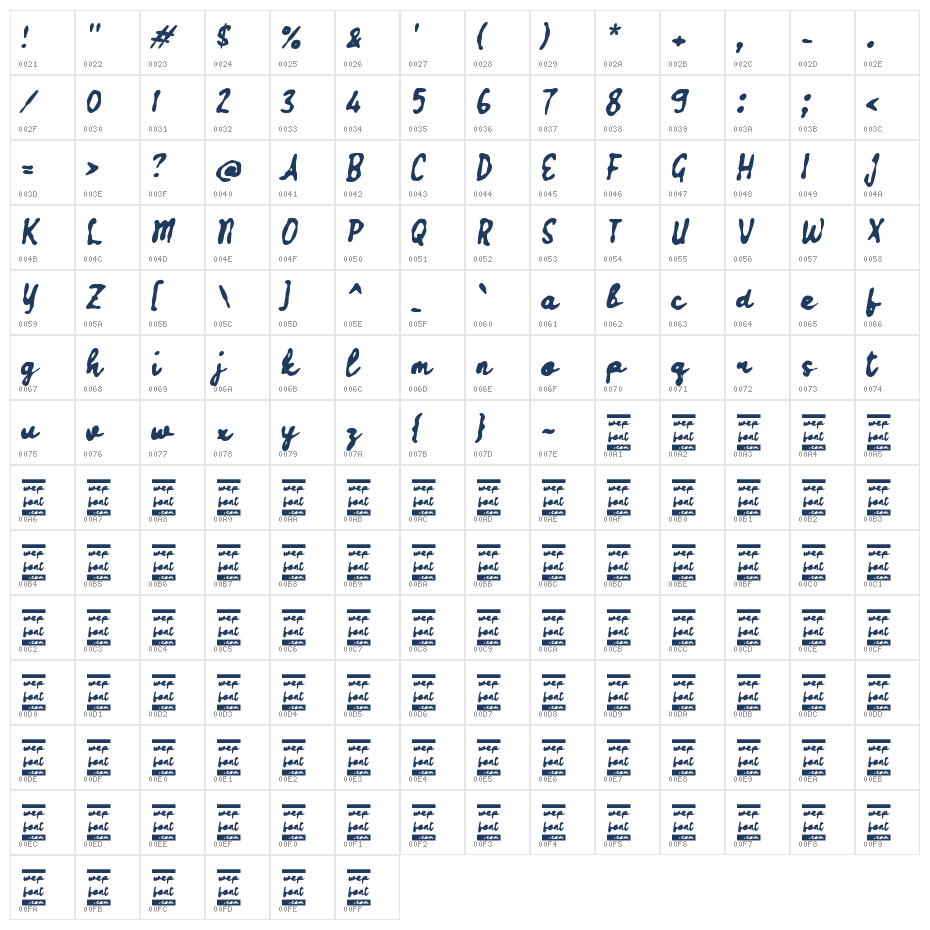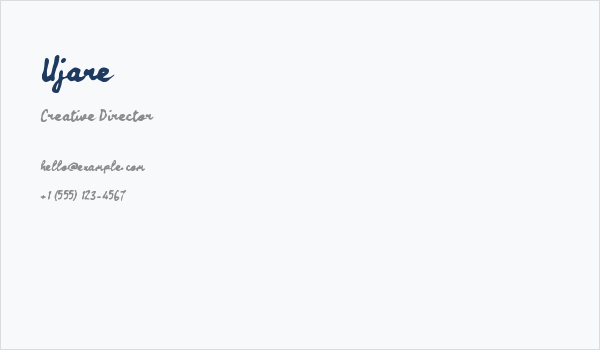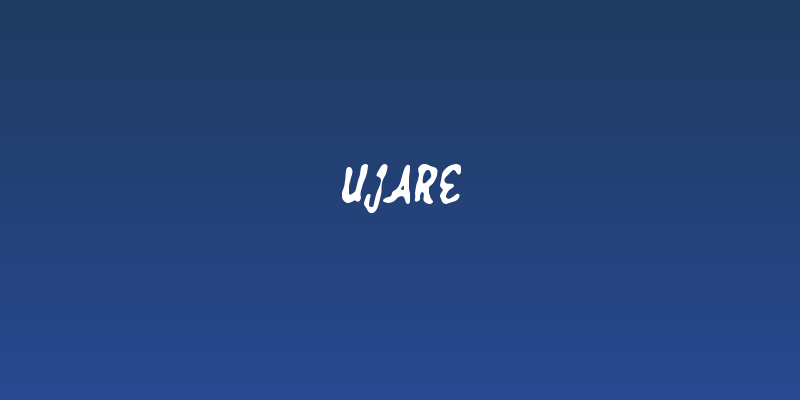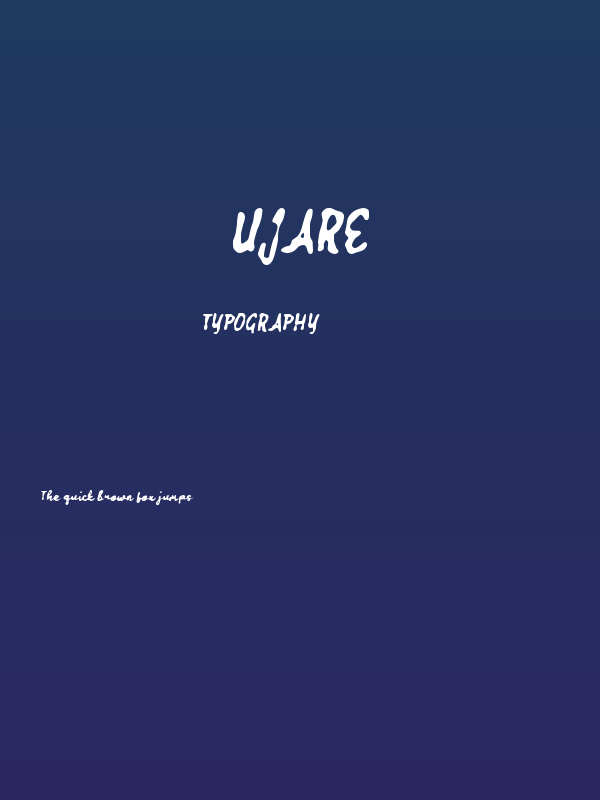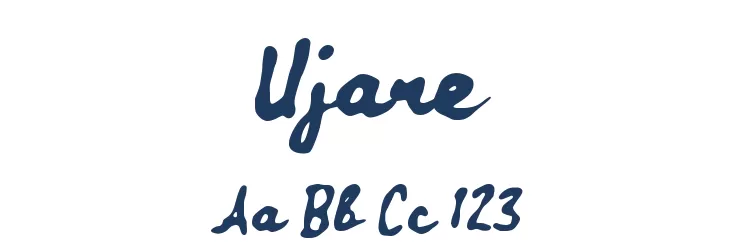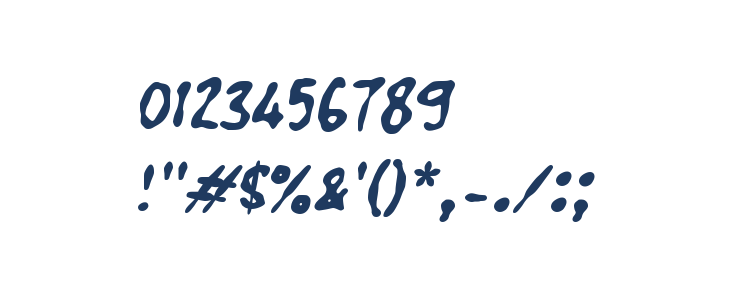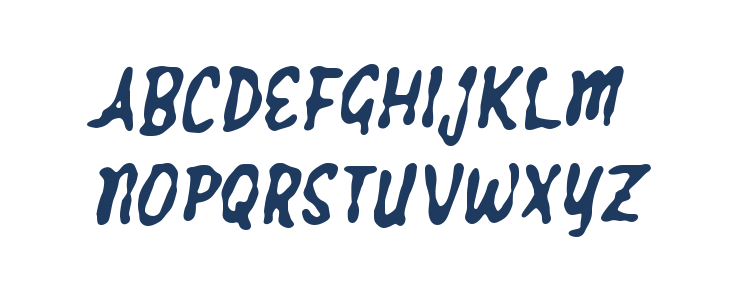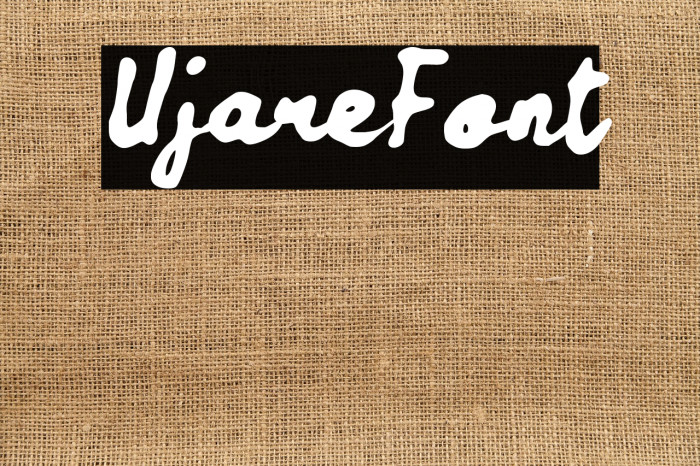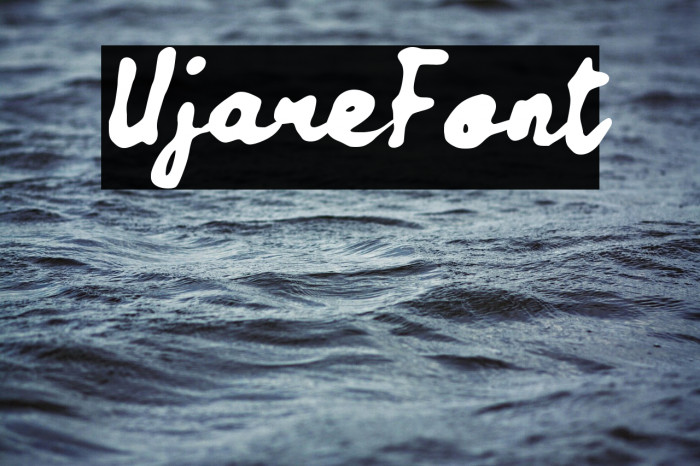
Ujare Font
Ujare Description
A casual, handwritten script font with a playful and informal style, featuring slightly irregular strokes and a smooth flow.
| Overall Style | Casual, Handwritten, Playful |
| Use Case | Headlines, Social media posts, Invitations, Logos |